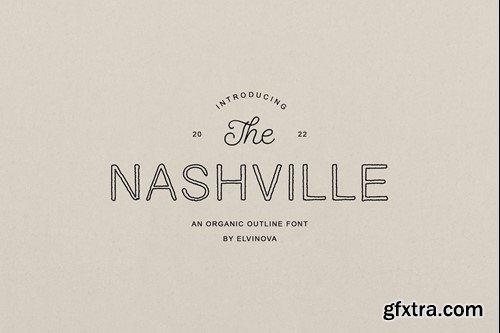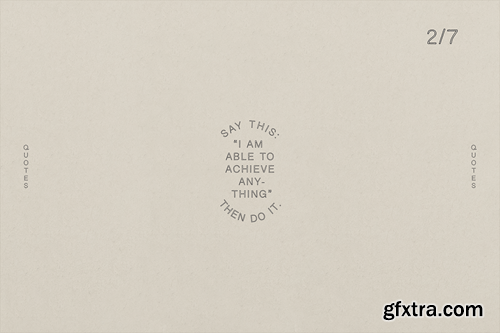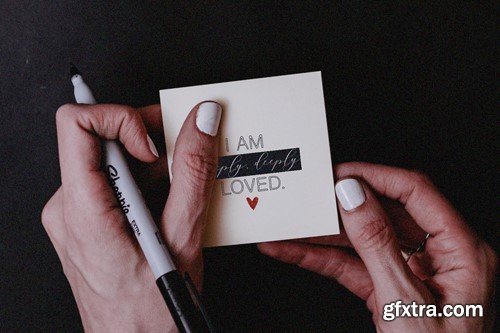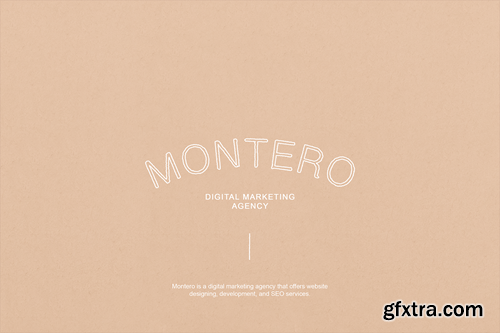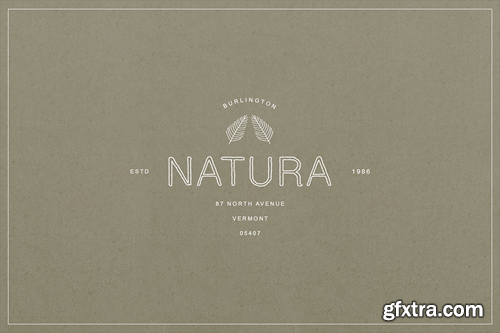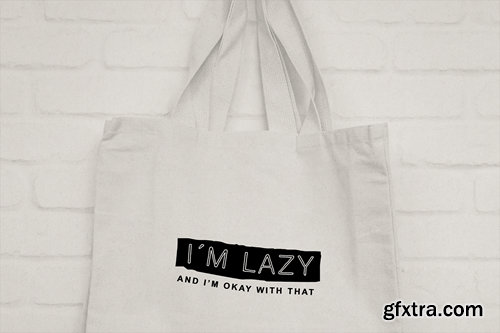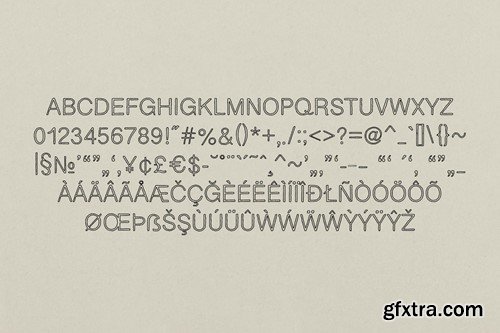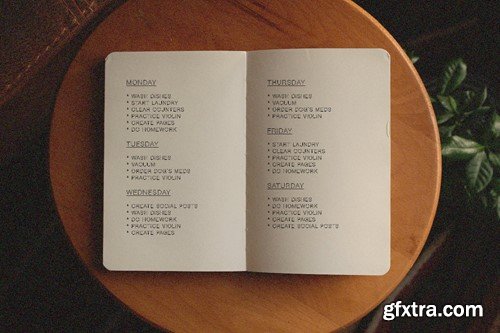
Nashville | Outline Font
Introducing, the Nashville - an organic outline font. OTF files; Upper/lowercase, numbers, punctuations; Regular, Italic, Bold, Solid. Language support: English, German, French, Spanish, Italian, Danish, Finnish, Portuguese, Swedish, Norwegian, Dutch, Indonesian, Luxembourgish, Icelandic, Cornish, Hungarian, Filipino, Turkish. I hope you enjoy!